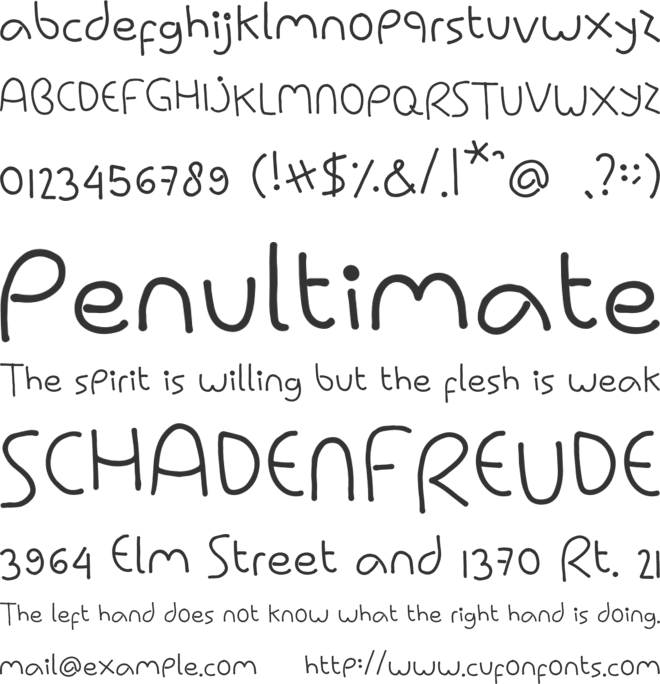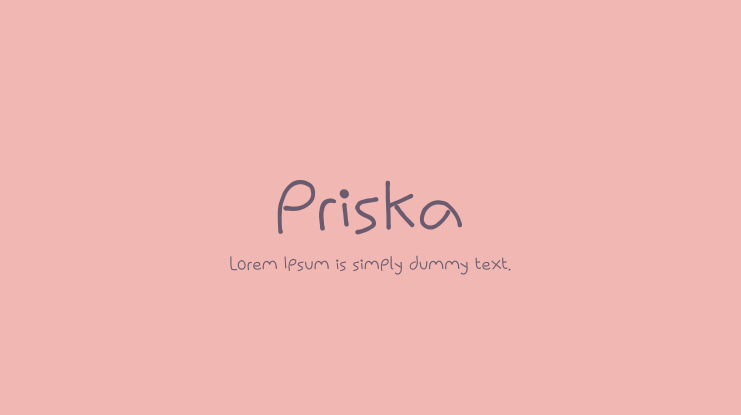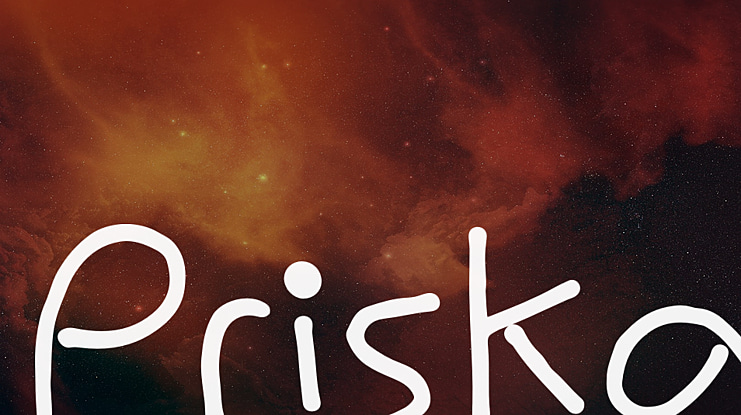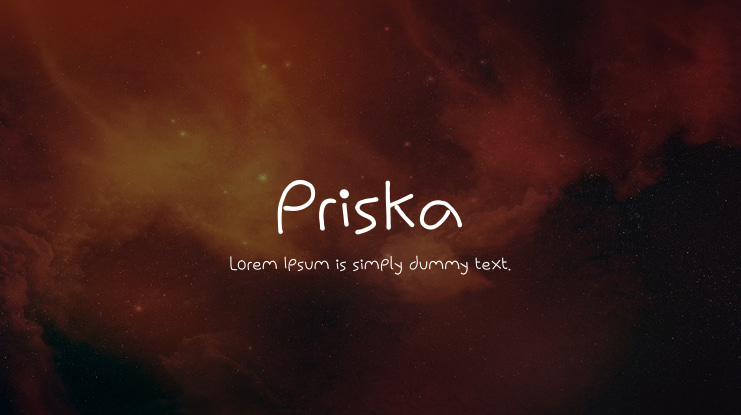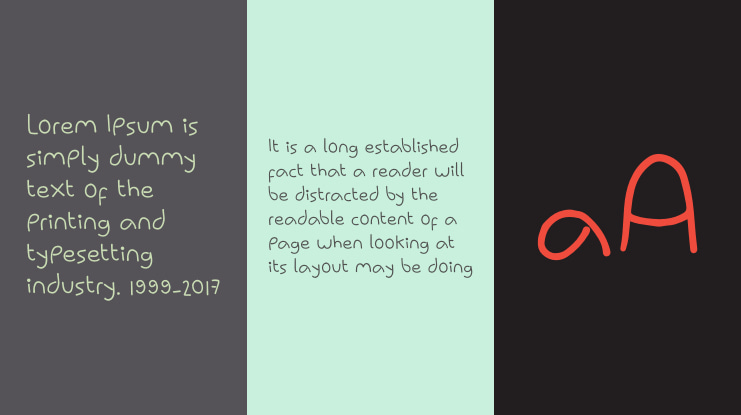
Priska Font Family
Priska, a neat distinct hand-drawn display typeface with four different styles; Light, Regular, Semi bold, and Bold. This font will present a stylish and chic impression to any kind of design projects.
Priska Font best uses for invitations, branding, body copy, logotype, greeting cards, social media posts, and many more. Priska Font will never let your designs go out of style! NOTE:
Priska font preview